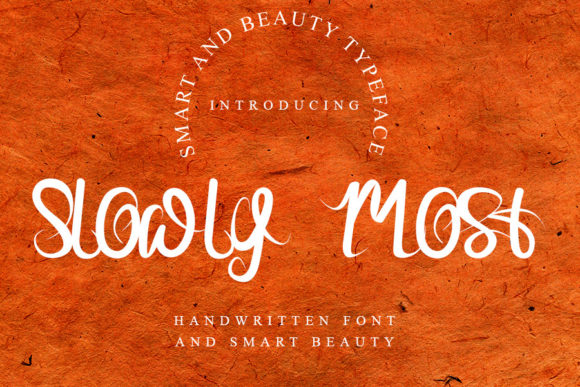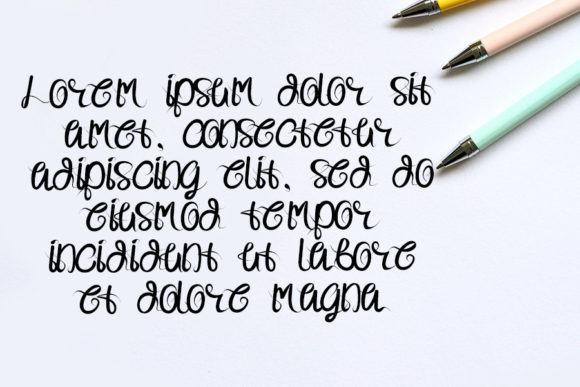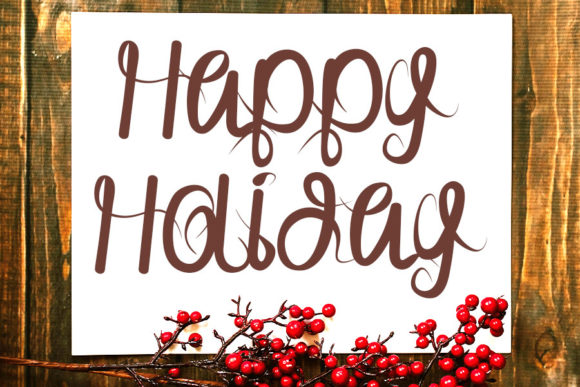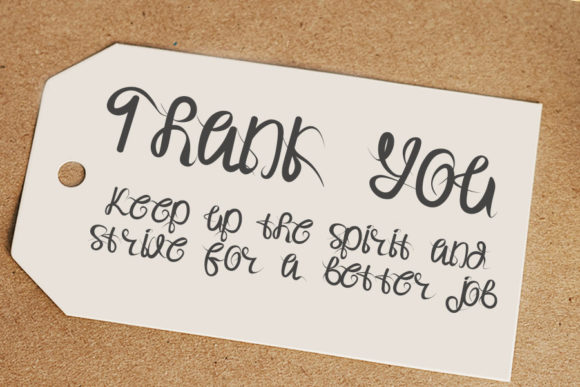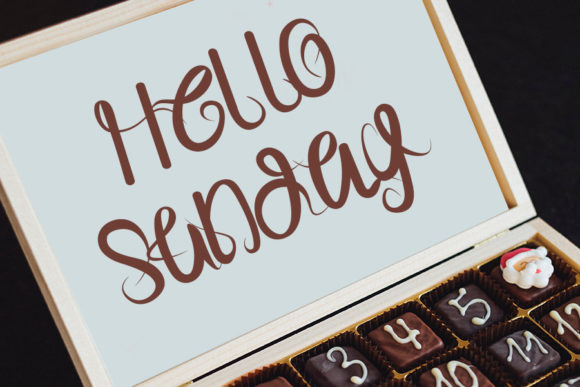
Slowly Most Font
About Slowly Most Font
Slowly Most is a charming and whimsical handwritten font that adds a touch of elegance and modernity to your designs. With its unique and playful letterforms, this font brings a sense of creativity and personality to any project.
The beautiful and flowing nature of Slowly Most makes it a versatile choice for a wide range of design applications. Whether you’re creating branding materials, wedding invitations, stationery, social media posts, or any other design that requires a touch of whimsy, this font will bring a delightful and eye-catching element to your work.
The modern look of Slowly Most sets it apart, giving your designs a contemporary and stylish feel. It combines the elegance of hand-drawn lettering with a fresh and unique twist, making it suitable for both professional and creative projects.
With Slowly Most, you have the flexibility to use it in various design contexts. Its versatility allows it to adapt to different styles and themes, adding a sense of charm and sophistication to your creations.
Whether you’re aiming for a playful and lighthearted design or a more refined and elegant aesthetic, Slowly Most can be easily customized to match your vision. Its smooth and flowing letterforms lend themselves well to creating visually appealing compositions.
From branding and invitations to social media graphics and beyond, Slowly Most offers endless possibilities to elevate your designs. Its modern yet whimsical style will captivate your audience and leave a lasting impression.
Embrace the beauty and whimsy of Slowly Most and let it bring a touch of modern elegance to your projects. Explore its various uses and unleash your creativity with this versatile handwritten font.